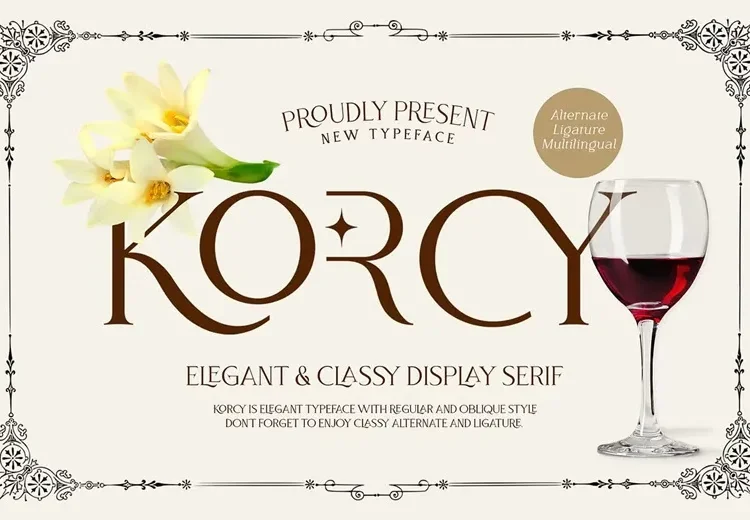
Korcy Font
Korcy is a refined and sophisticated display serif font, designed with sharp, striking serifs that exude class and elegance. Available in both Regular and Oblique styles, this font brings versatility to any design project. With a collection of standard ligatures and titling options, Korcy enhances typography with seamless letter connections and refined details, making it a perfect choice for editorial designs, branding, invitations, and luxury packaging.
Beyond its stylish aesthetic, Korcy boasts extensive language support for the Latin alphabet, ensuring global usability while maintaining a strong visual presence. Its sleek, high-contrast letterforms and precise craftsmanship make it an excellent option for those seeking a balance of tradition and modernity in their typography.